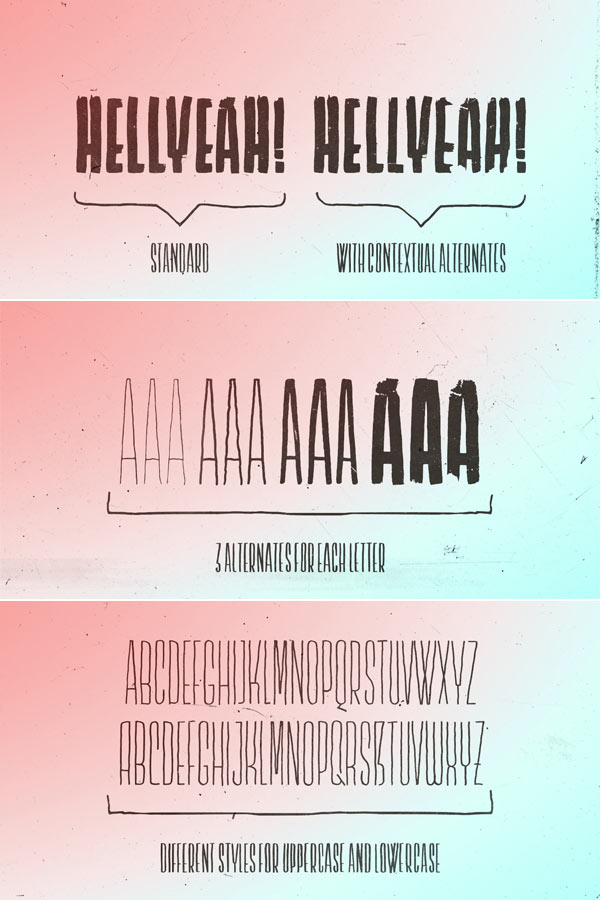
The Lichtspielhaus Handmade font family from Typocalypse.
You may remember the Lichtspielhaus typeface by German designer Stefan Huebsch of Typocalypse from our review some time ago. The Lichtspielhaus Handmade font family is an ultra condensed handwritten version based exactly on this typeface. The family consists of 4 weights ranging from hairline to heavy. Its style is mainly inspired by hand-painted signs and lettering found on cinema facades and billboards of the good old cinema days. Stylish alternates and different styles for uppercase and lowercase letters ensure a natural hand-painted look. You can get this family as webfont as well as desktop font.
The Lichtspielhaus Handmade font family is the second release of a Type Noir Quadrilogy. We can be curious, what comes next!